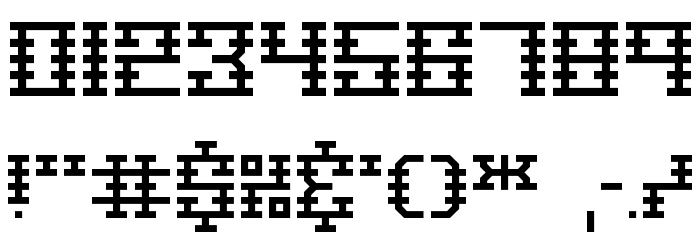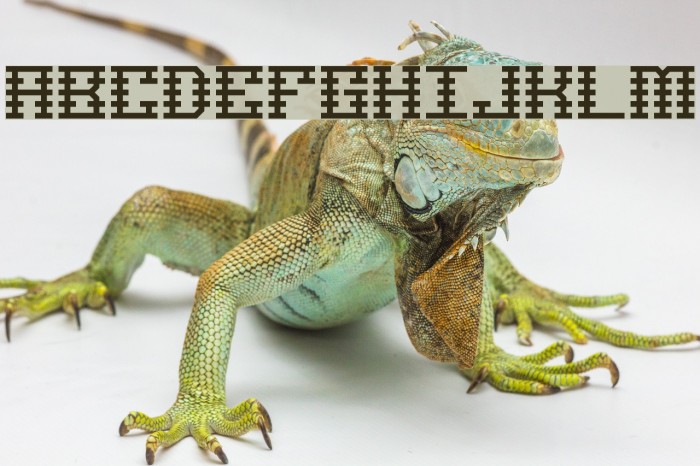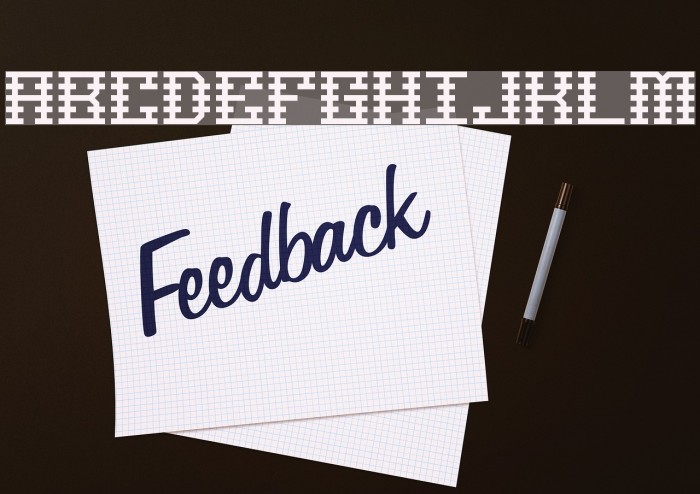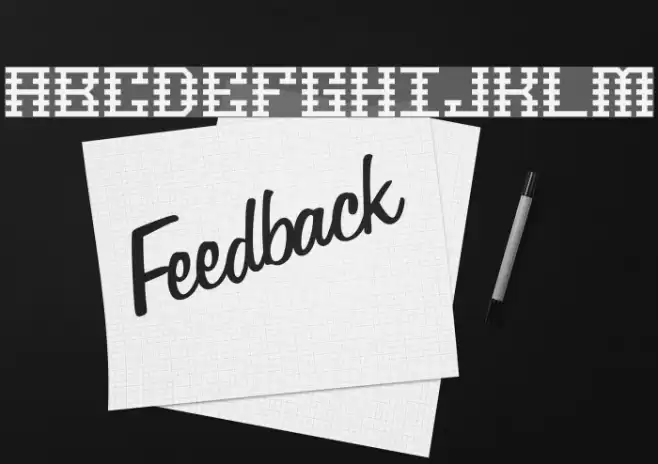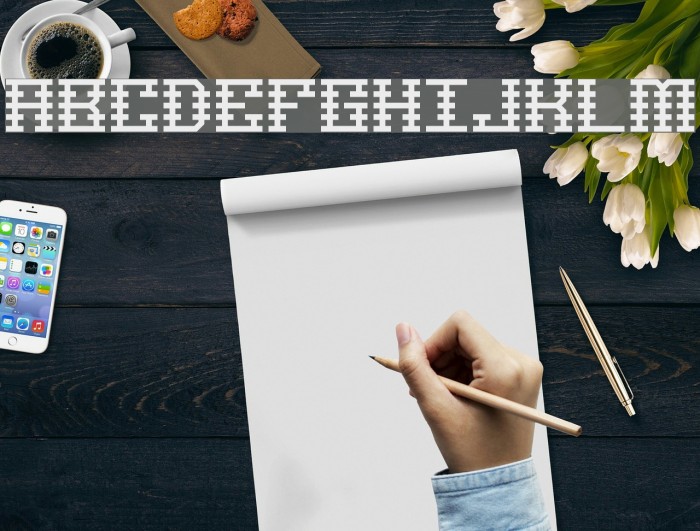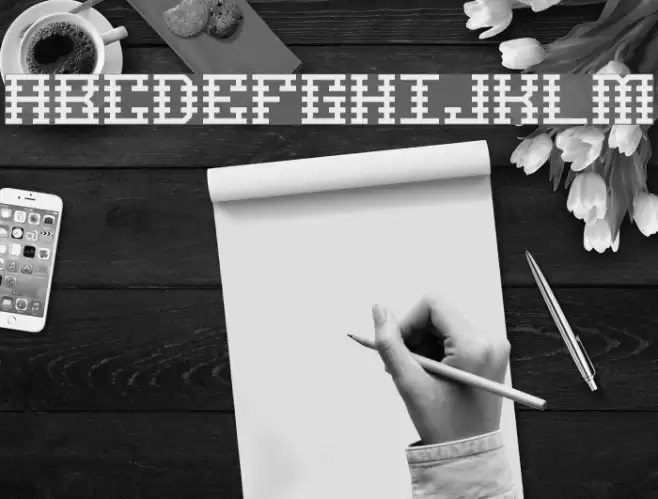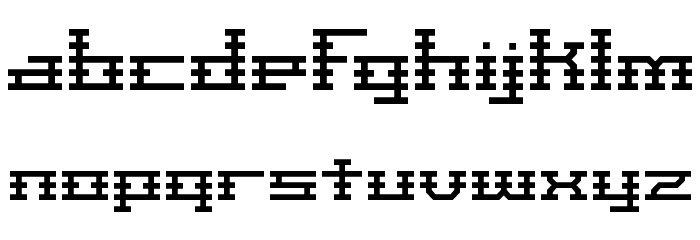
Scalelines BRK Font
Scalelines BRK Description
This font features a unique, pixelated design reminiscent of early digital displays or retro video games. Each character is constructed from a series of horizontal and vertical lines, creating a blocky, grid-like appearance. The uppercase and lowercase letters maintain a consistent height, while the numbers and special characters follow the same stylistic approach. The overall aesthetic is bold and eye-catching, making it suitable for projects that require a digital or vintage tech feel. The font's distinct style is both playful and nostalgic, evoking a sense of early computing and arcade games.
| Overall Style | Vintage |
| Use Case | Logos, Headlines, Posters |
| Proposed Projects | Ideal for retro video game designs, digital art projects, tech-themed posters, and vintage computer graphics. |